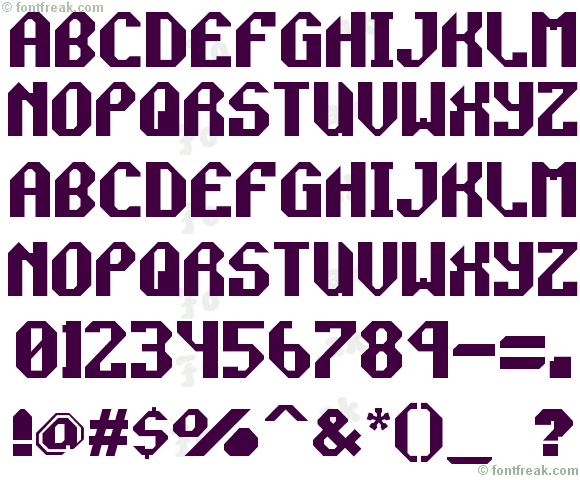
Rocket Propelled
About Rocket Propelled
Rocket Propelled is a striking display typeface designed by Digital Graphic Labs in 1998, and it's available as freeware, making it an accessible choice for creative projects. This font falls into the decorative category, characterized by its bold, geometric shapes that evoke the spirit of innovation and adventure. The stroke weight is consistently thick, providing a sturdy presence, while the angular forms and distinctive edges give it a dynamic and modern feel. The spacing is well-balanced, allowing for easy readability despite its unique aesthetic.
The Rocket Propelled font is particularly well-suited for a variety of specific applications. Its energetic style makes it an excellent choice for movie posters, especially in genres like sci-fi or action, where capturing attention is crucial. Additionally, it can enhance branding materials for tech startups or businesses focused on innovation, helping to convey a sense of forward momentum. Other ideal uses include designing eye-catching headlines for websites and social media graphics or even creating promotional materials for events that celebrate creativity and engineering.
Target audiences for this font range from graphic designers seeking to make a statement in their work to small business owners looking to establish a memorable brand identity. Content creators can also benefit from its unique style, as it lends itself well to various digital applications.
What sets the Rocket Propelled font apart is its ability to combine boldness with a sense of whimsy, making it a versatile tool for anyone looking to inject a dose of creativity into their designs. With the Rocket Propelled font free download now available, you can easily incorporate this eye-catching typeface into your next project and elevate your visual storytelling.